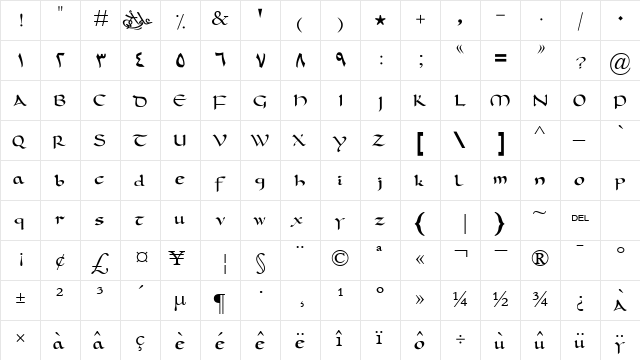
Boahmed Alhour Regular
Design Context for Boahmed Alhour Typeface
Boahmed Alhour is a composed and adaptable typeface that performs quietly and consistently across a wide range of design contexts.